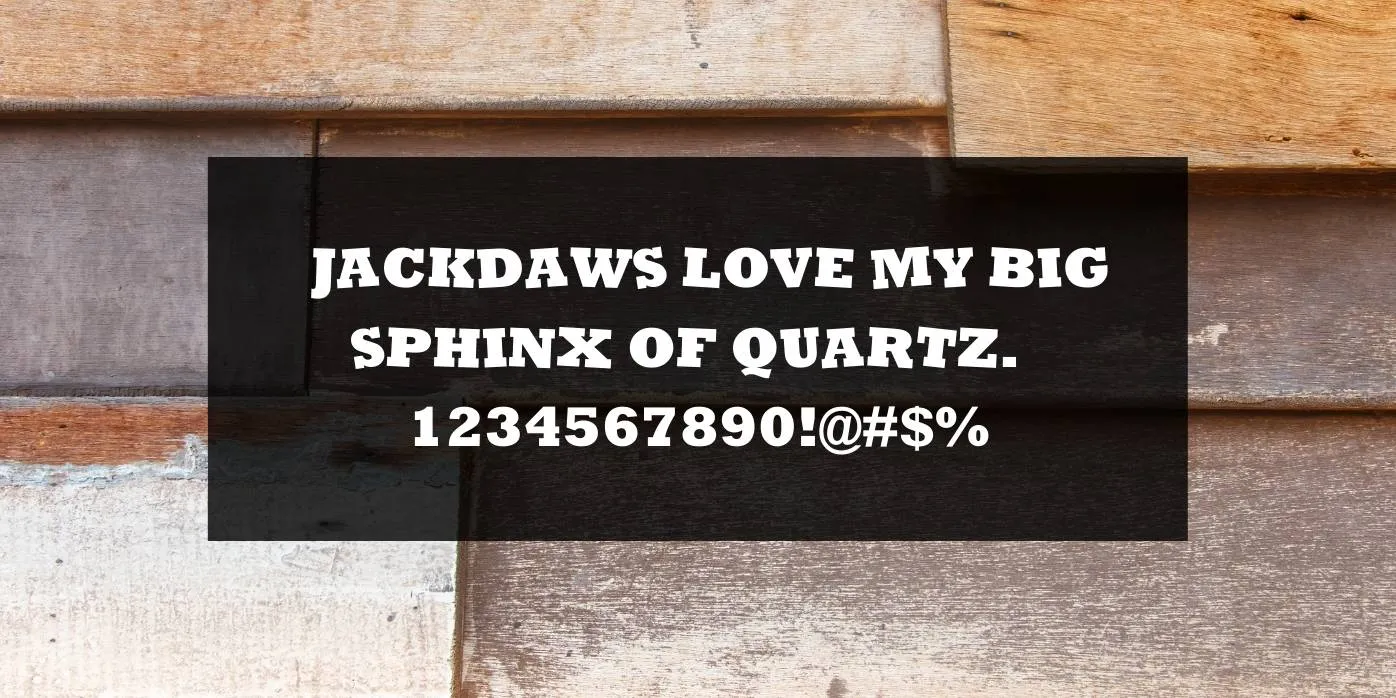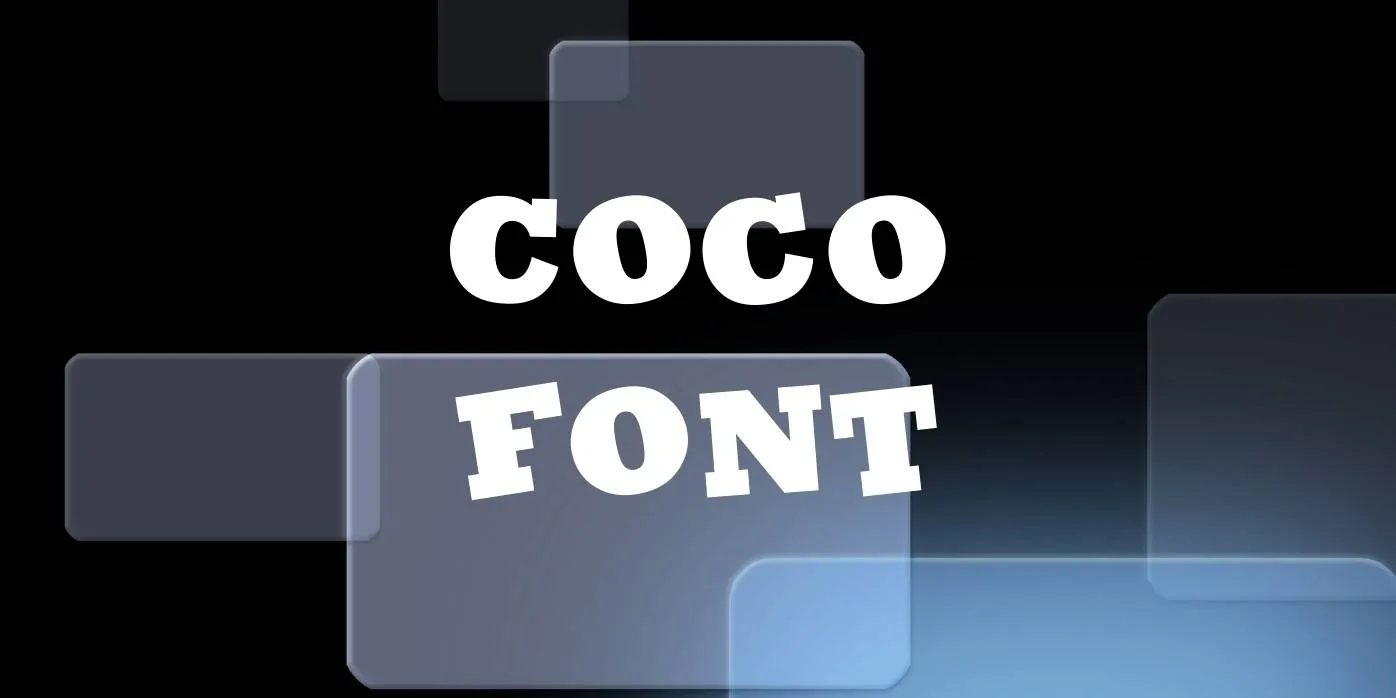
Coco Font
Today we present Coco Font which belongs to the Slab Serif family. It was manufactured by Franco Fern√°ndez. Franco Fern√°ndez is a typeface designer from Uruguay. This staggering font was his first published typeface and it has since been used by many big brands.
This awesome font is a strong and sturdy typeface that works well for both headlines and body text. It’s a great choice for any project that needs a touch of personality. This stunning typeface is available in various styles like Regular, Condensed, and Expanded. You can use rockwell font which has the same style and characters like this one.
Coco Font is an excellent choice if you’re looking for a slab serif font that has both personality and versatility. It’s perfect for headlines, branding, and print design. This typeface will provide the facility of an online generator tool.